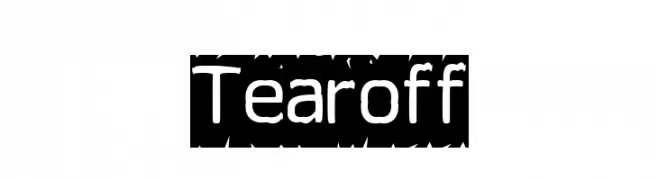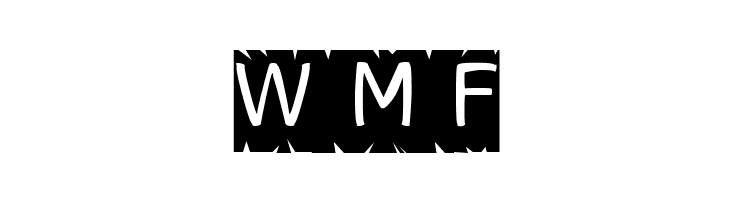
( Fonts by Graham Meade - GemFonts )
A bold, distressed font with jagged edges and a torn appearance.
( Fonts by Graham Meade - GemFonts )
A bold, distressed sans-serif font with a rugged, torn appearance.